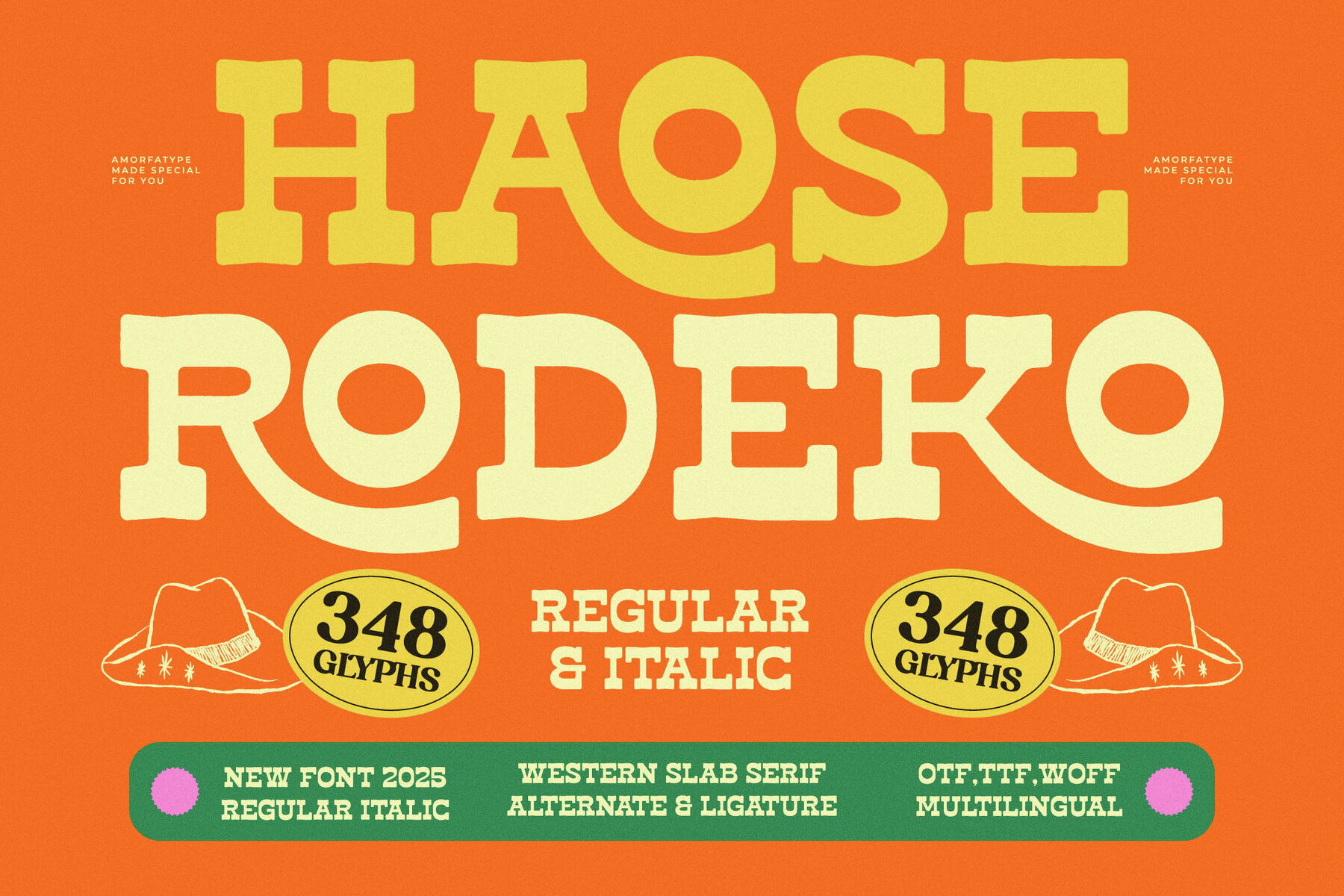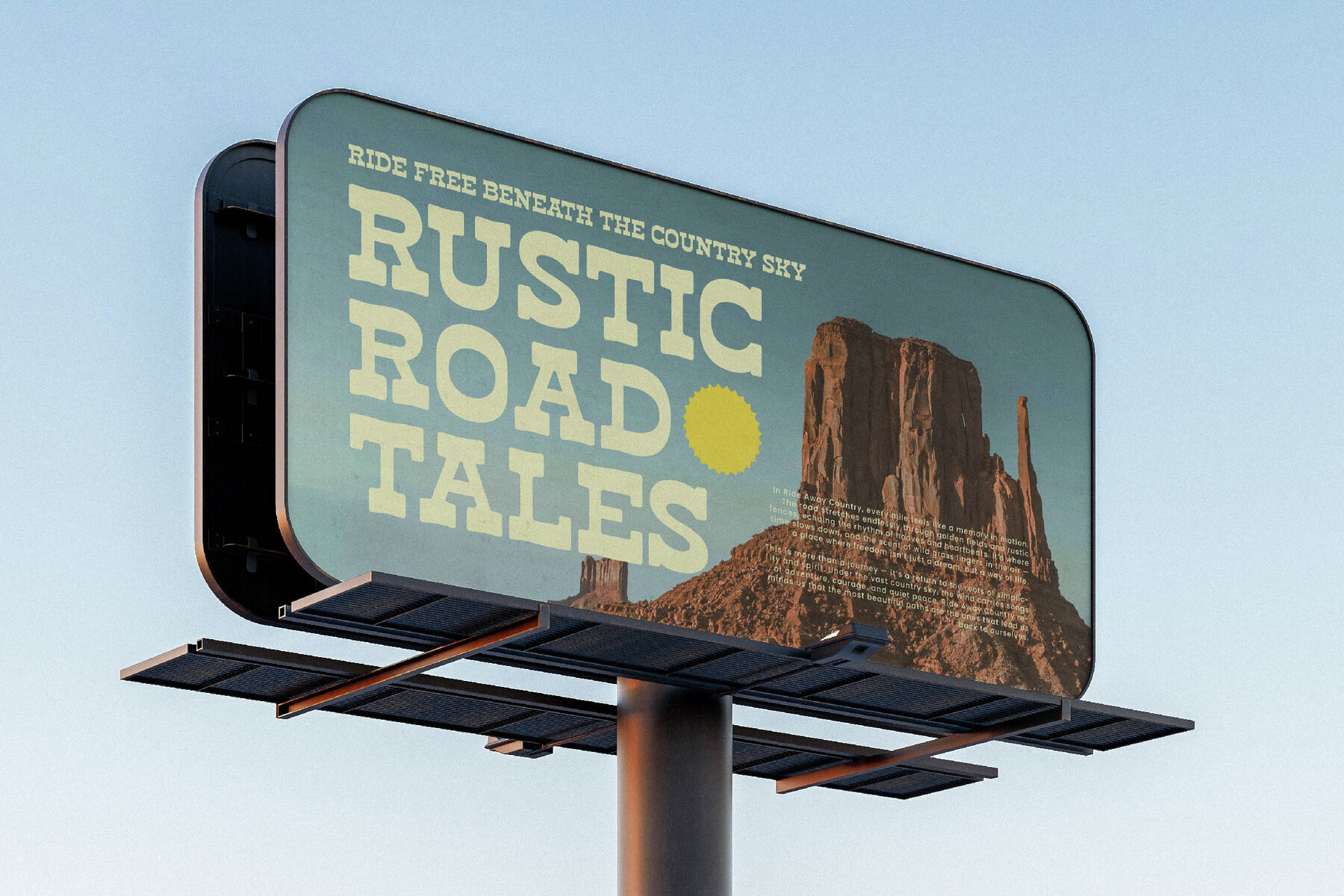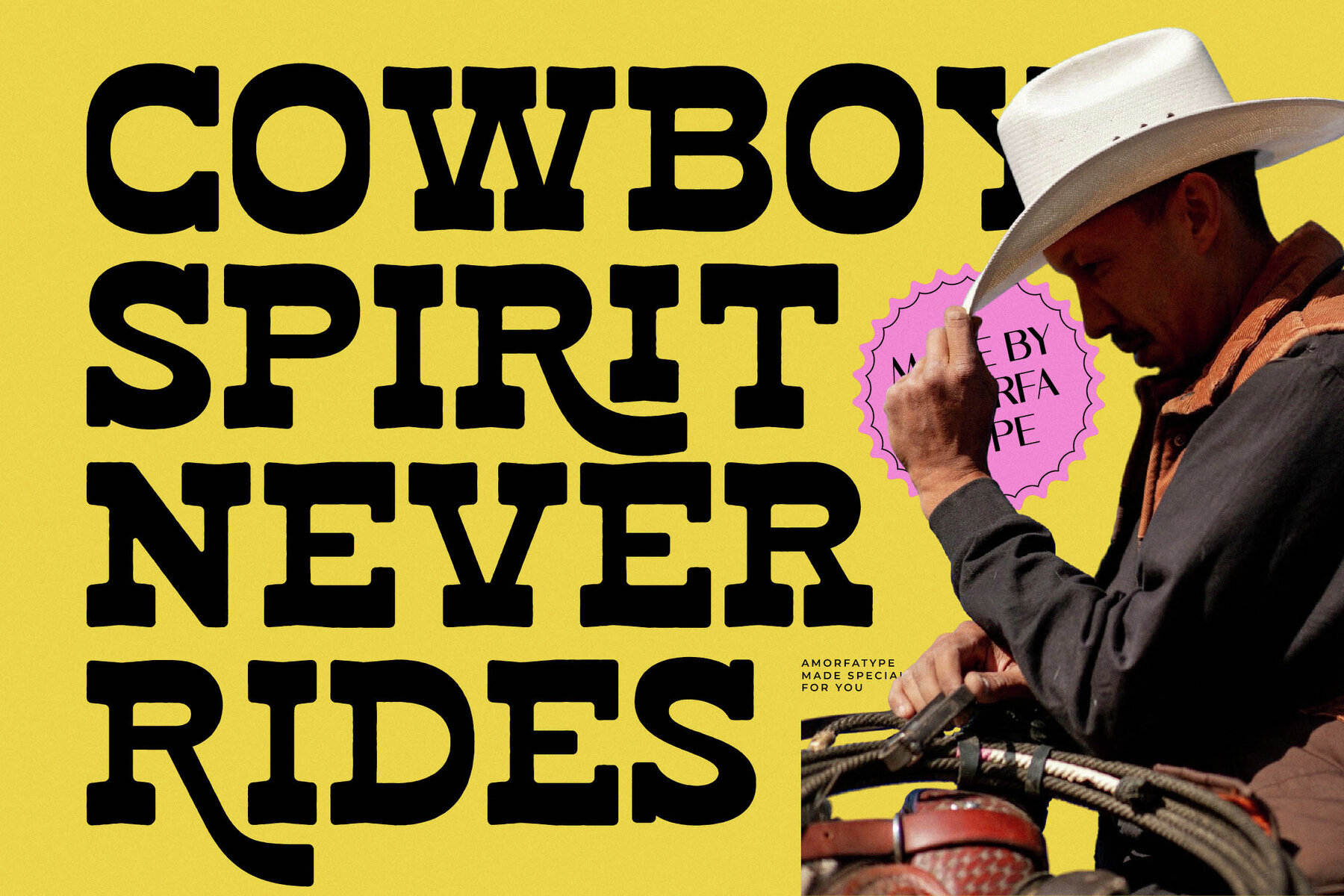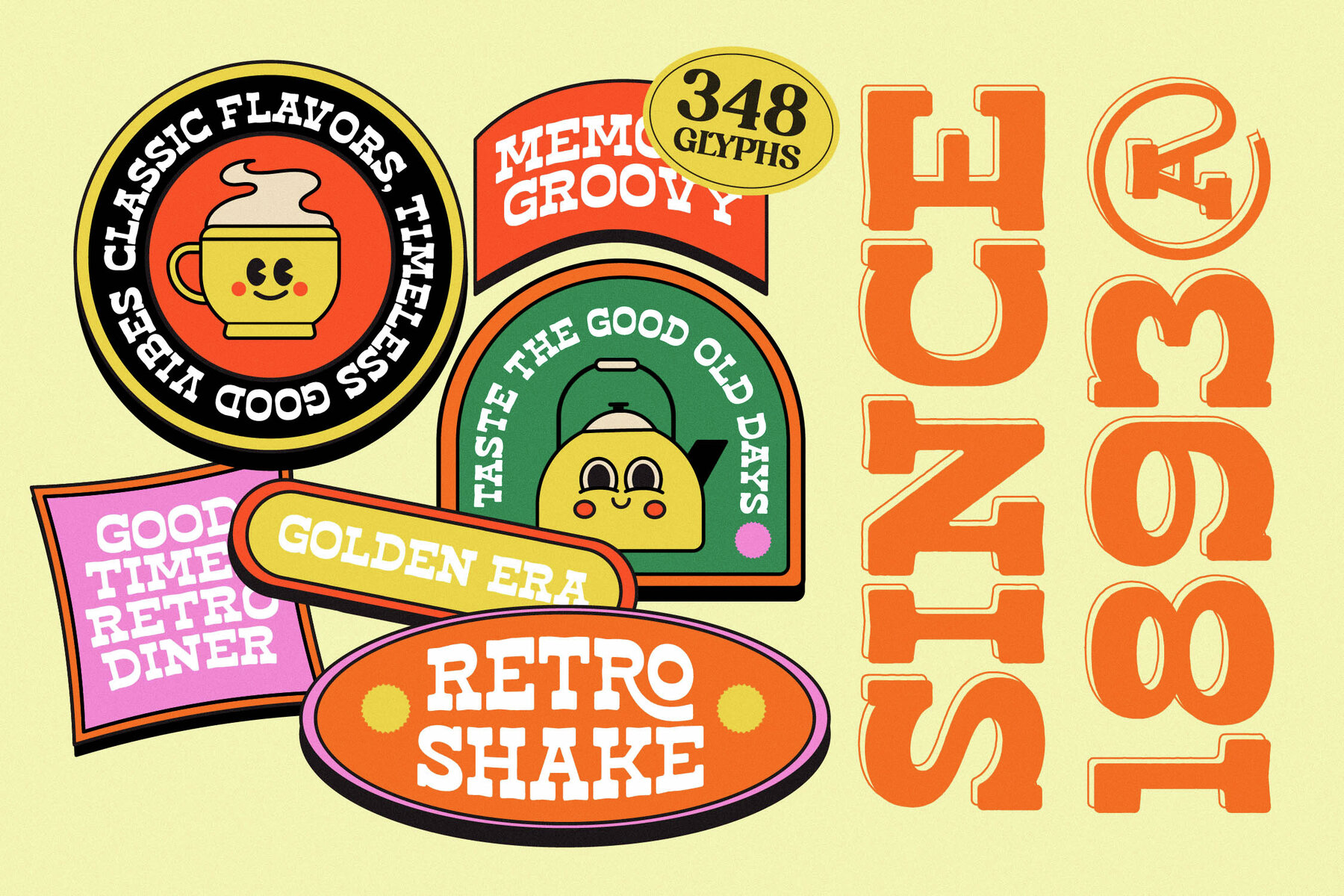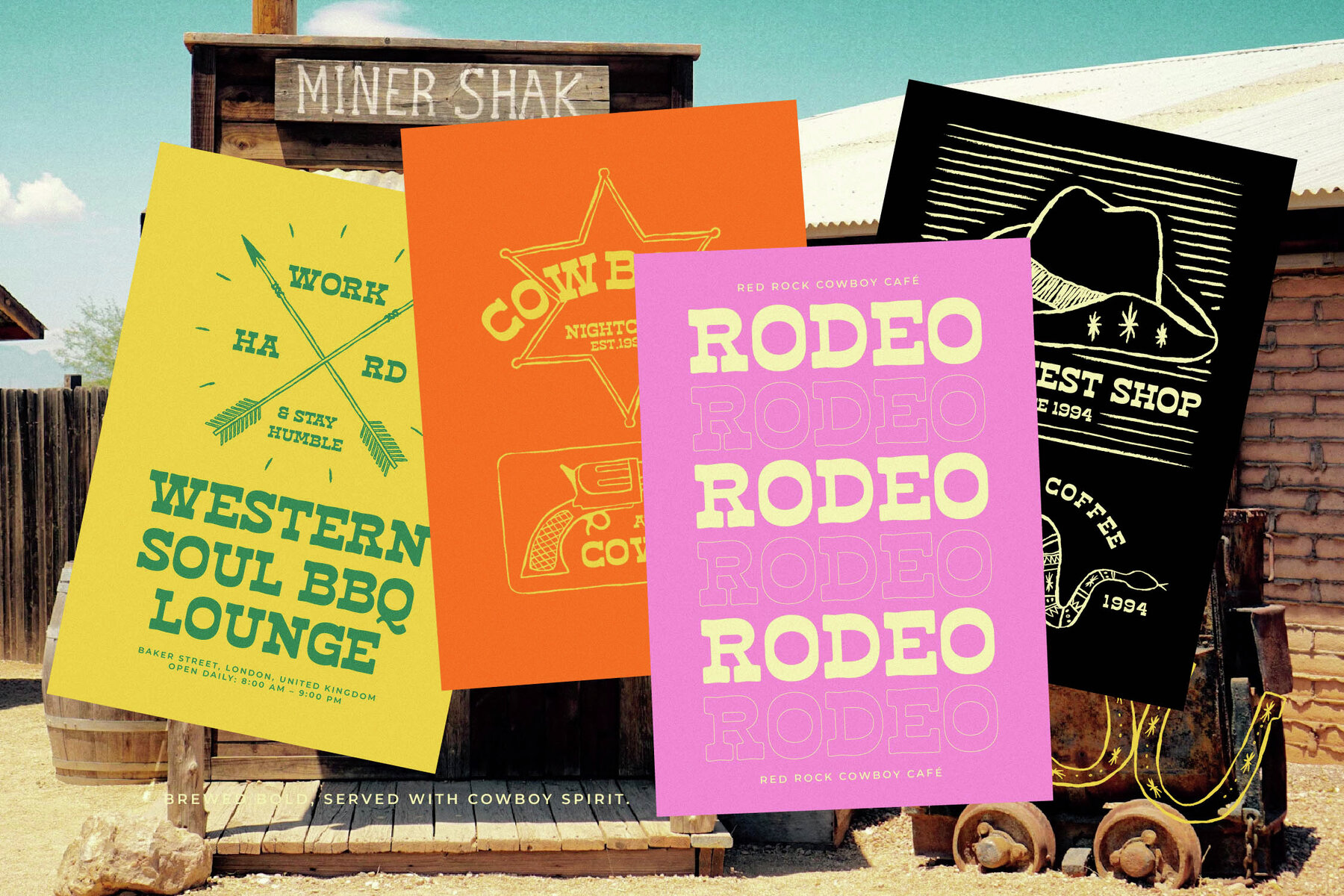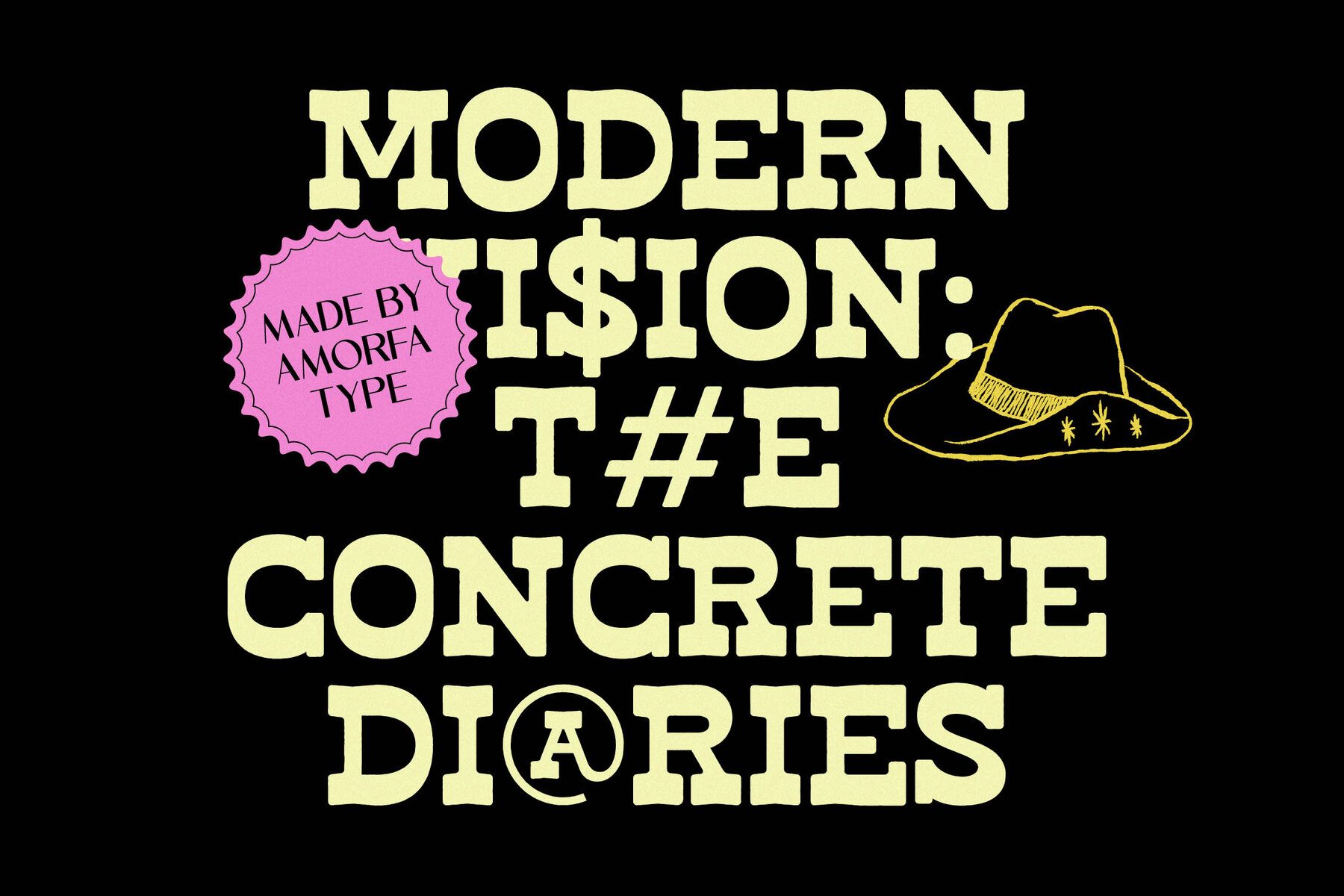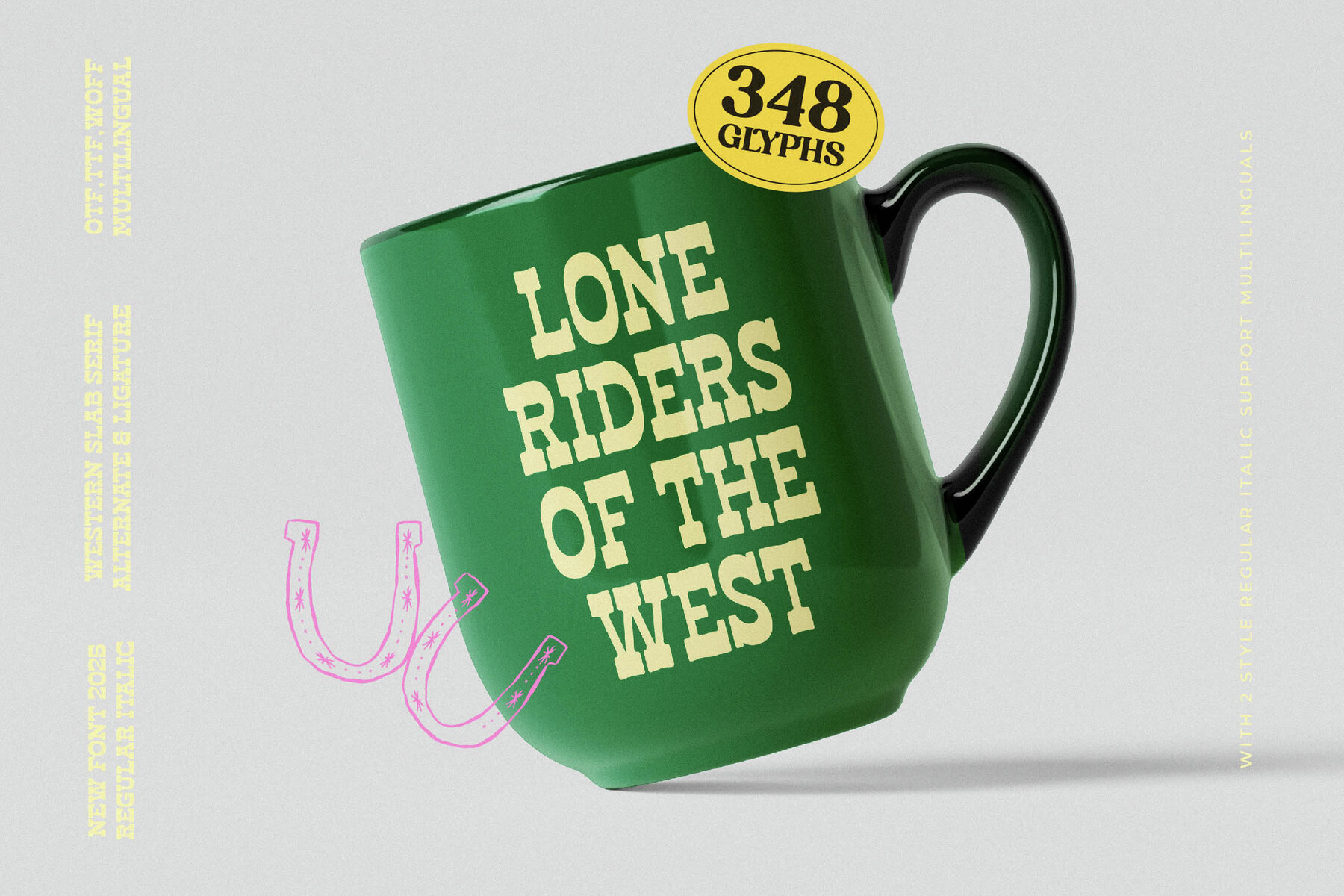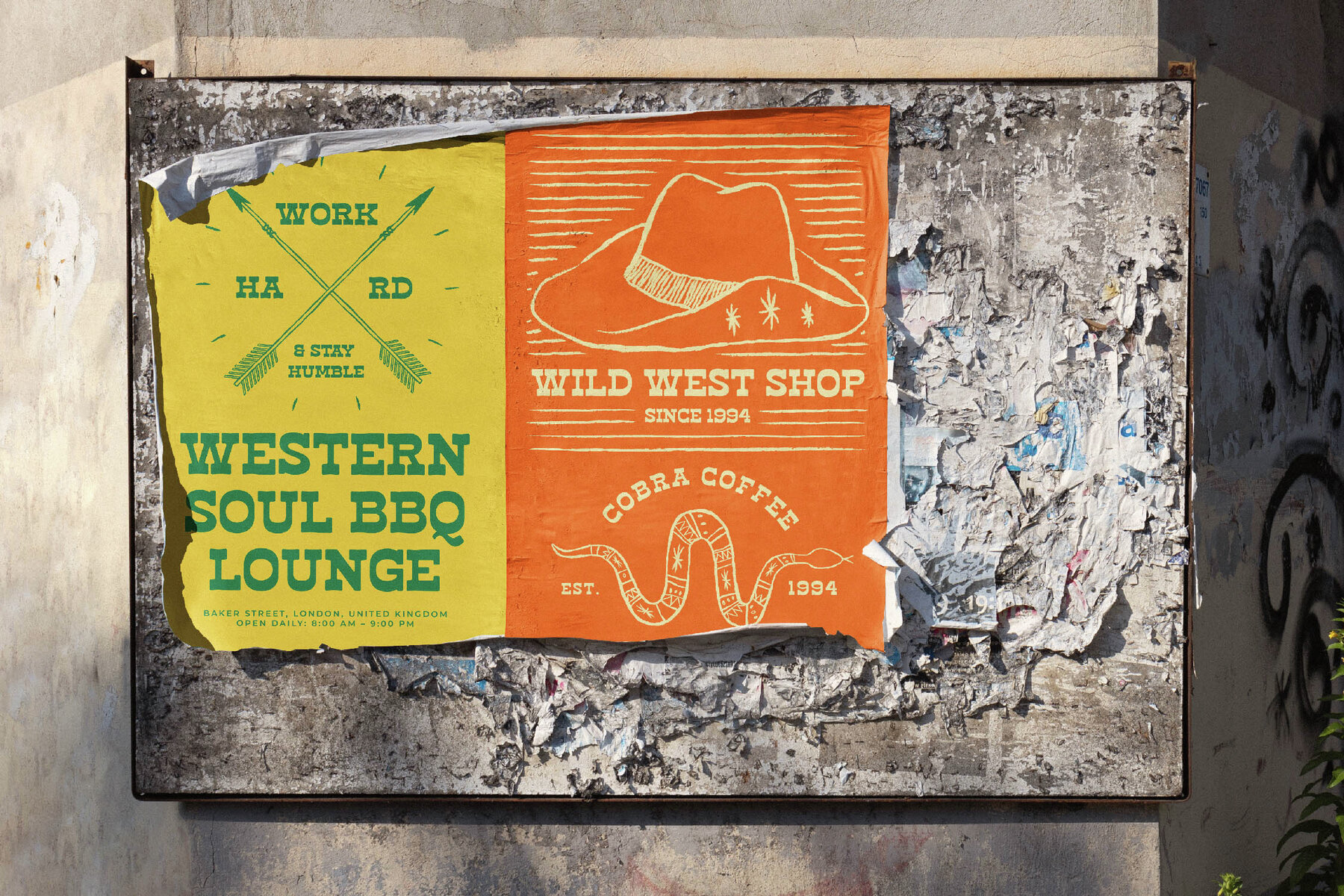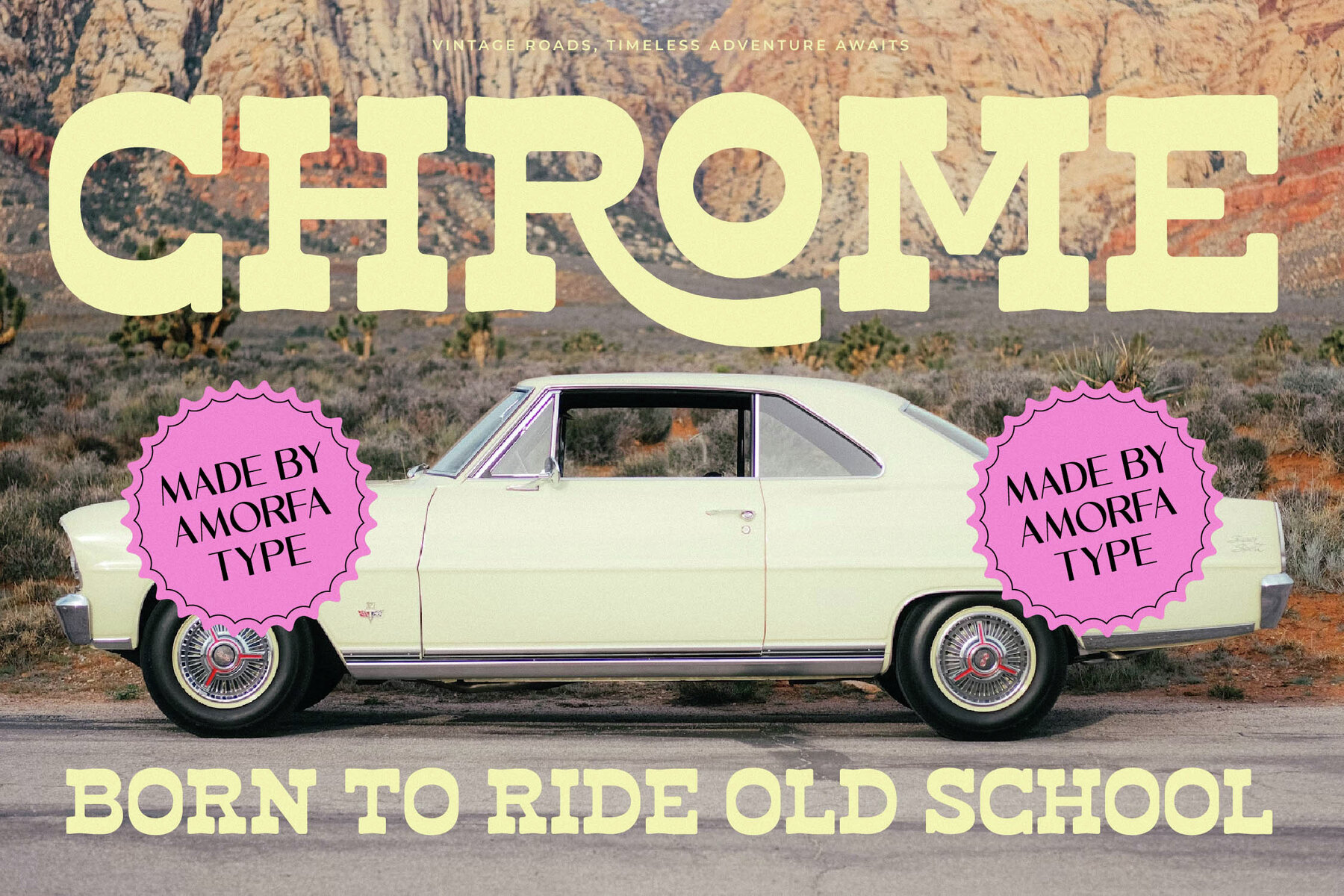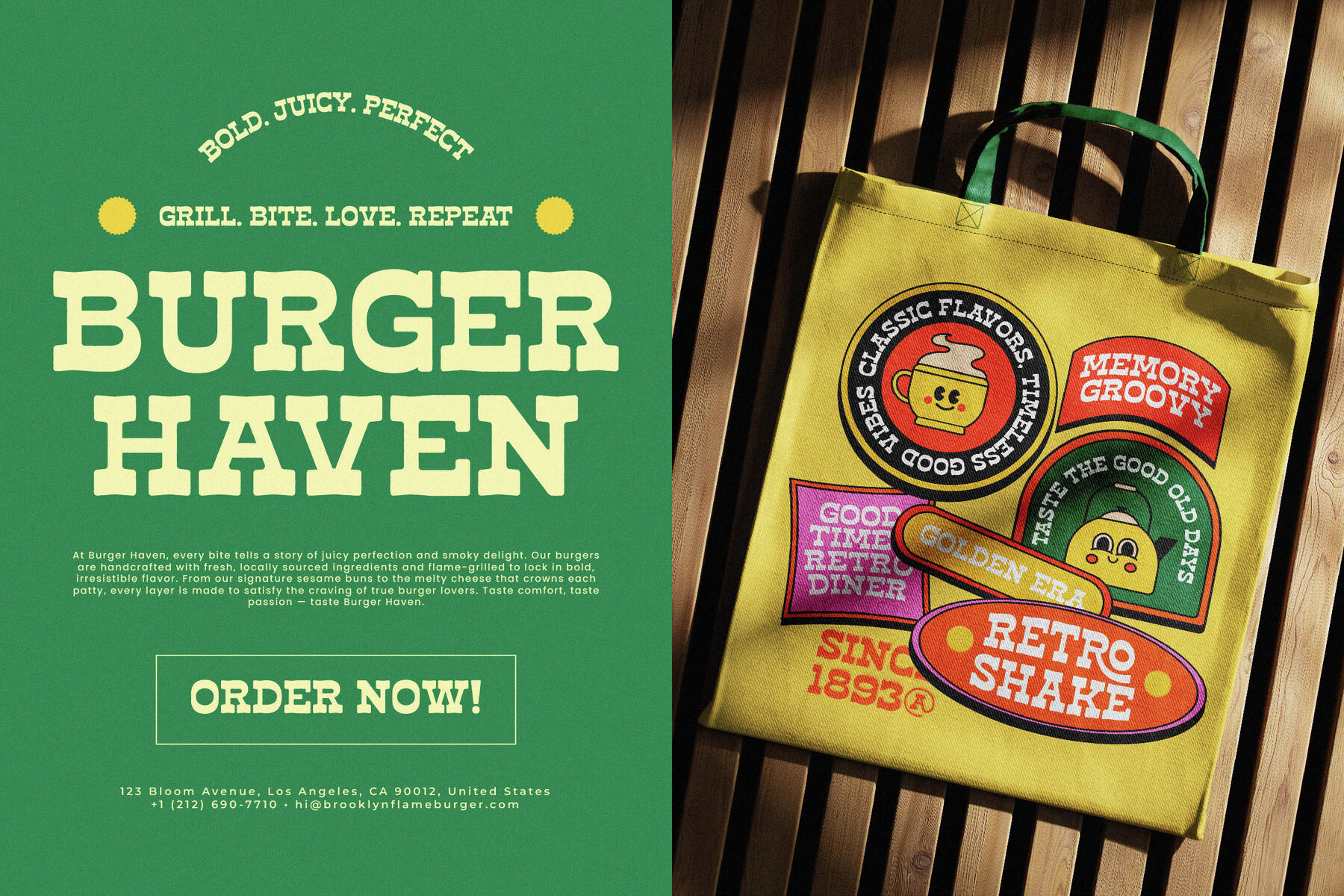
Haose Rodeko Font
Haose Rodeko captures the essence of Western aesthetics with its bold slab serif design, marrying rugged charm and modern sleekness. This font is ideal for vintage branding, eye-catching posters, and editorial titles, providing a nostalgic yet potent punch of character. Its design versatility is evident with 348 glyphs, including 9 alternates and 7 ligatures, offering creative control for high-impact typography tailored for both print and digital platforms. Whether crafting a heritage logo, a retro headline, or Western-themed visuals, Haose Rodeko promises timeless allure in every stroke.Haose Rodeko: Western Slab Serif With Geometric Precision